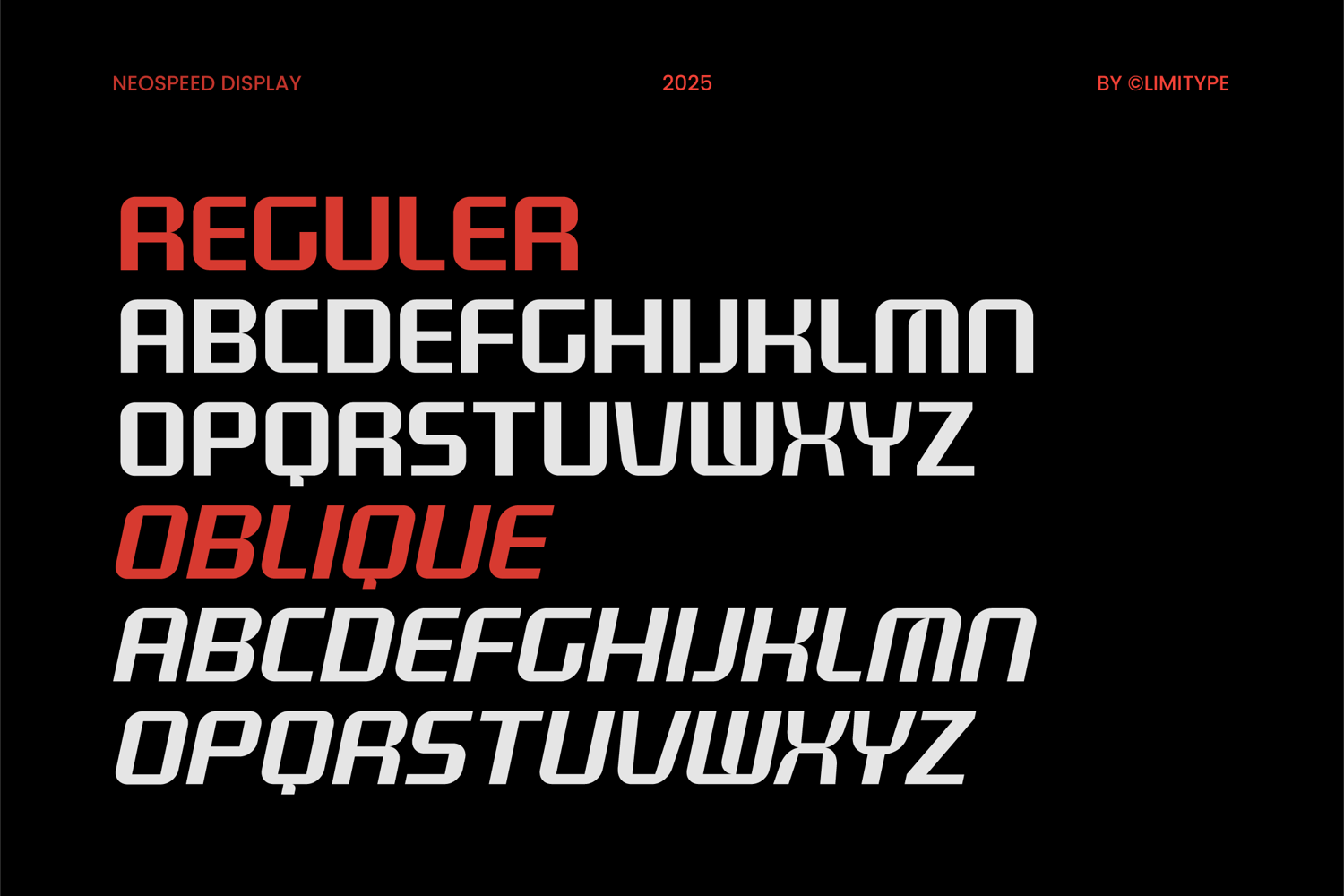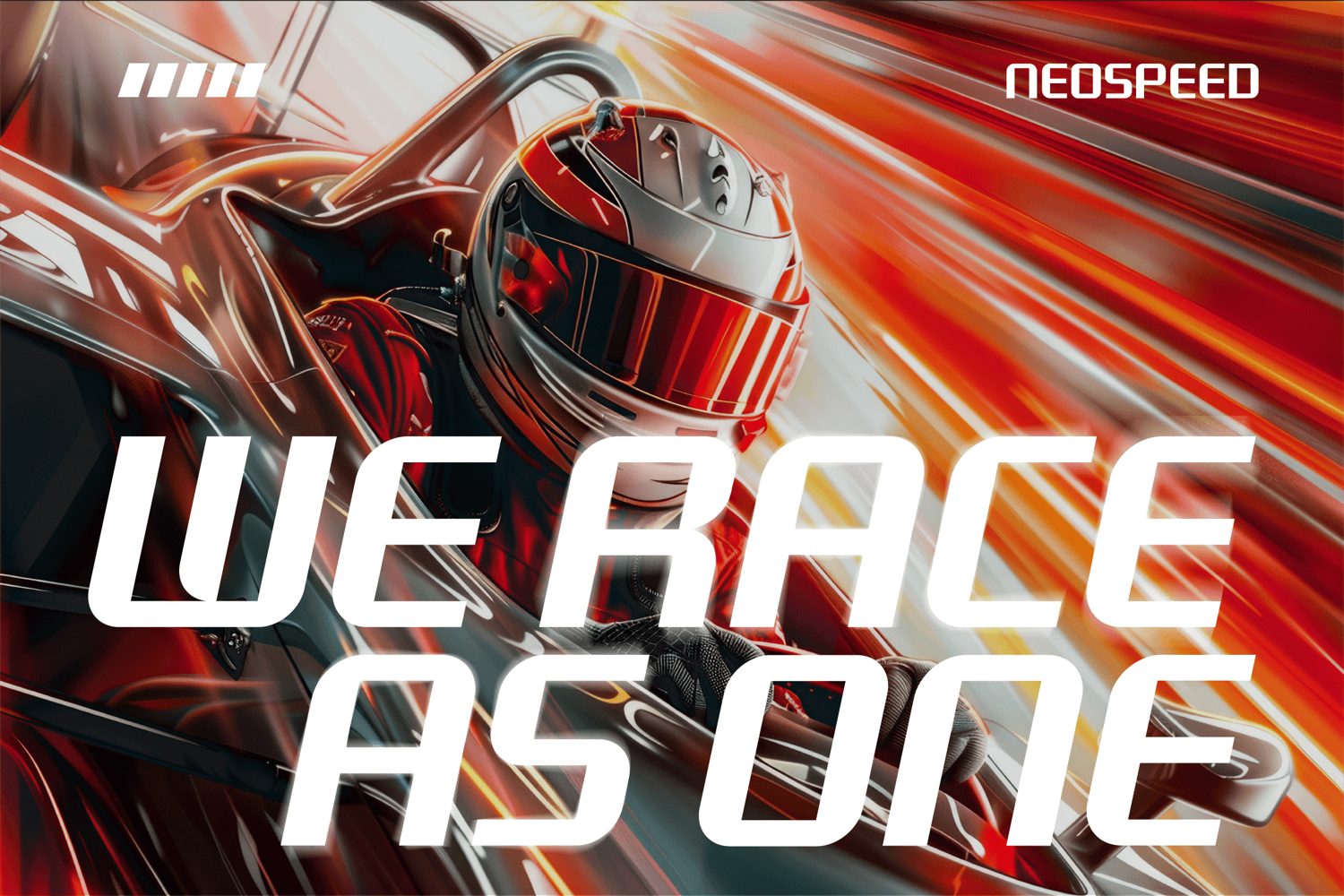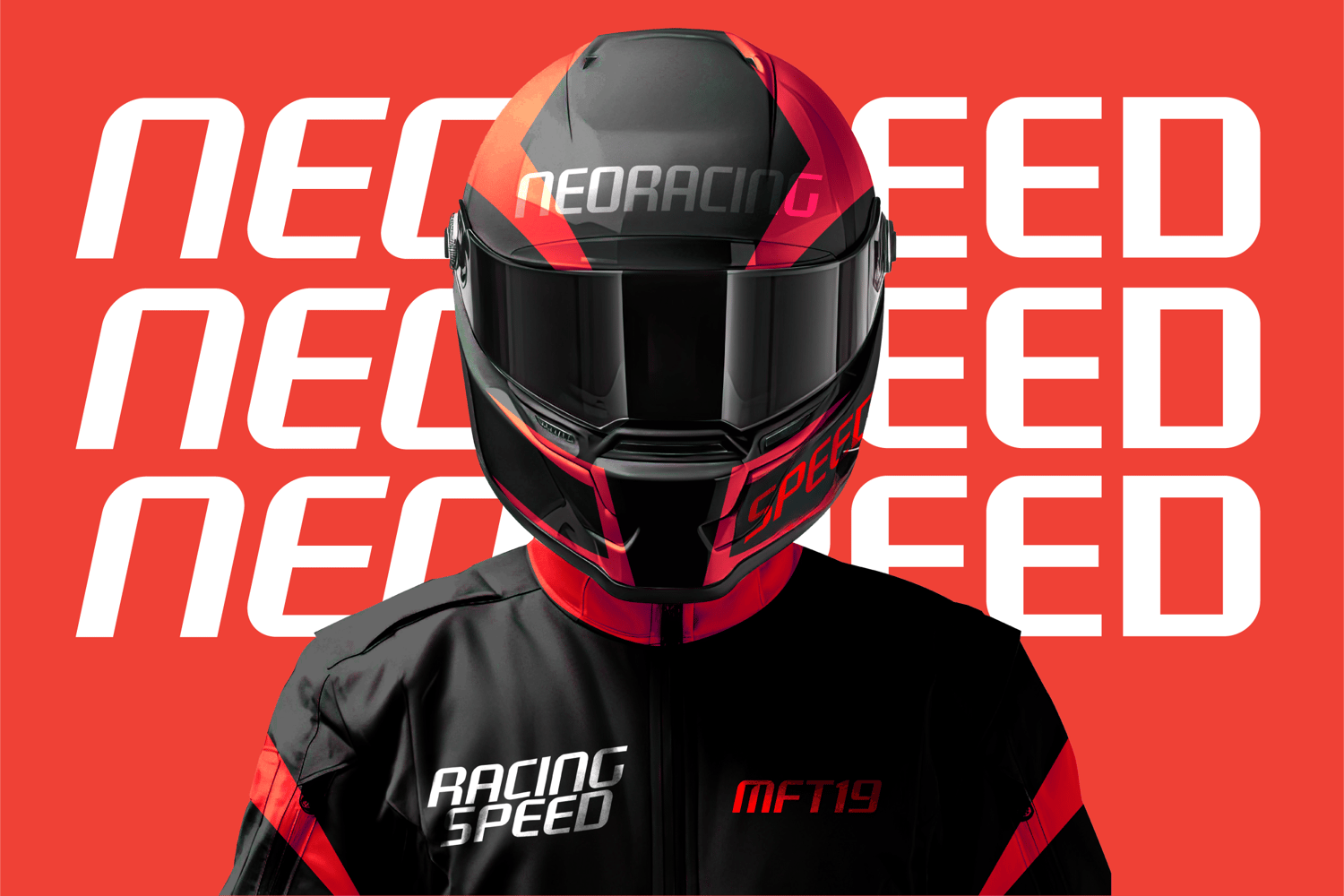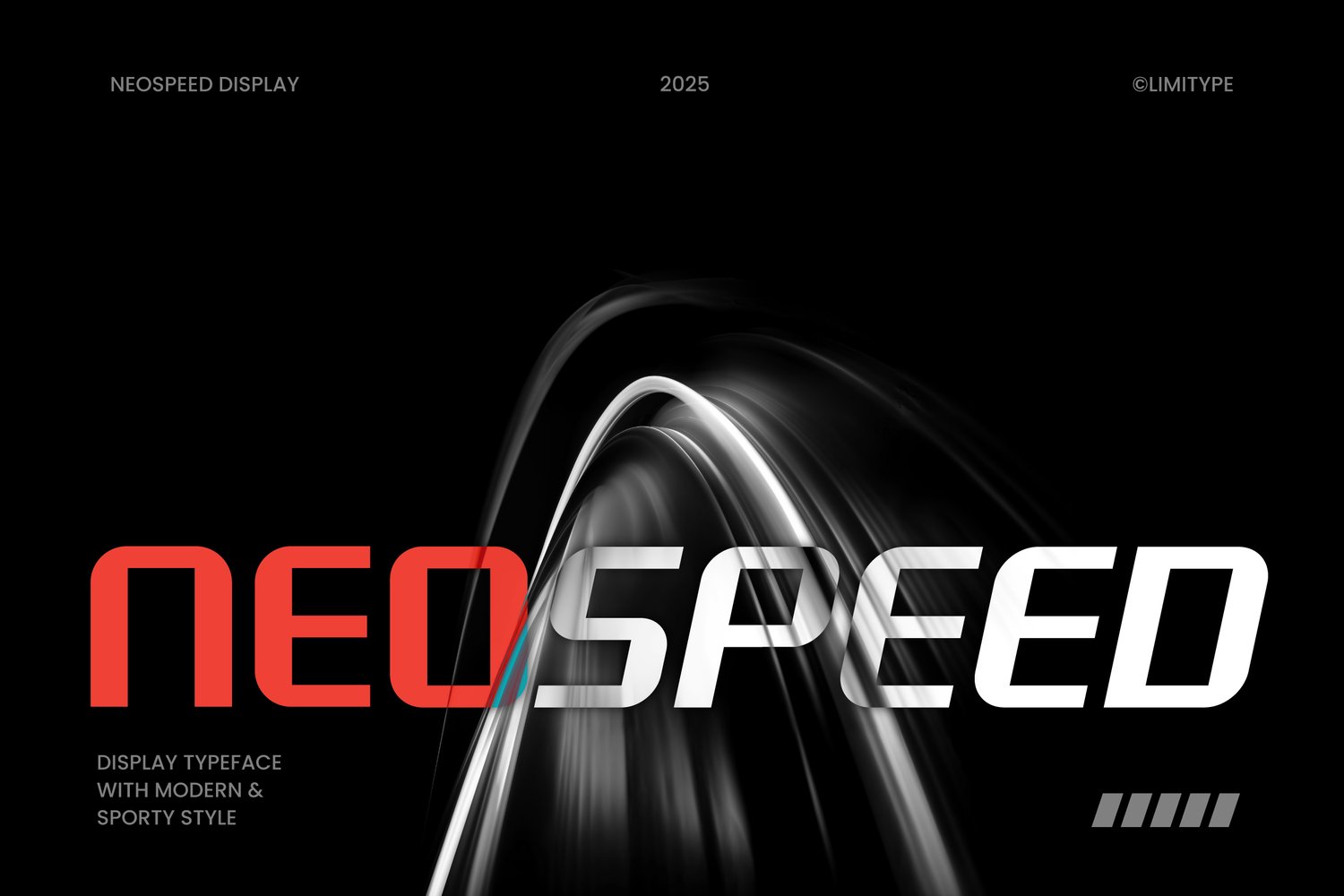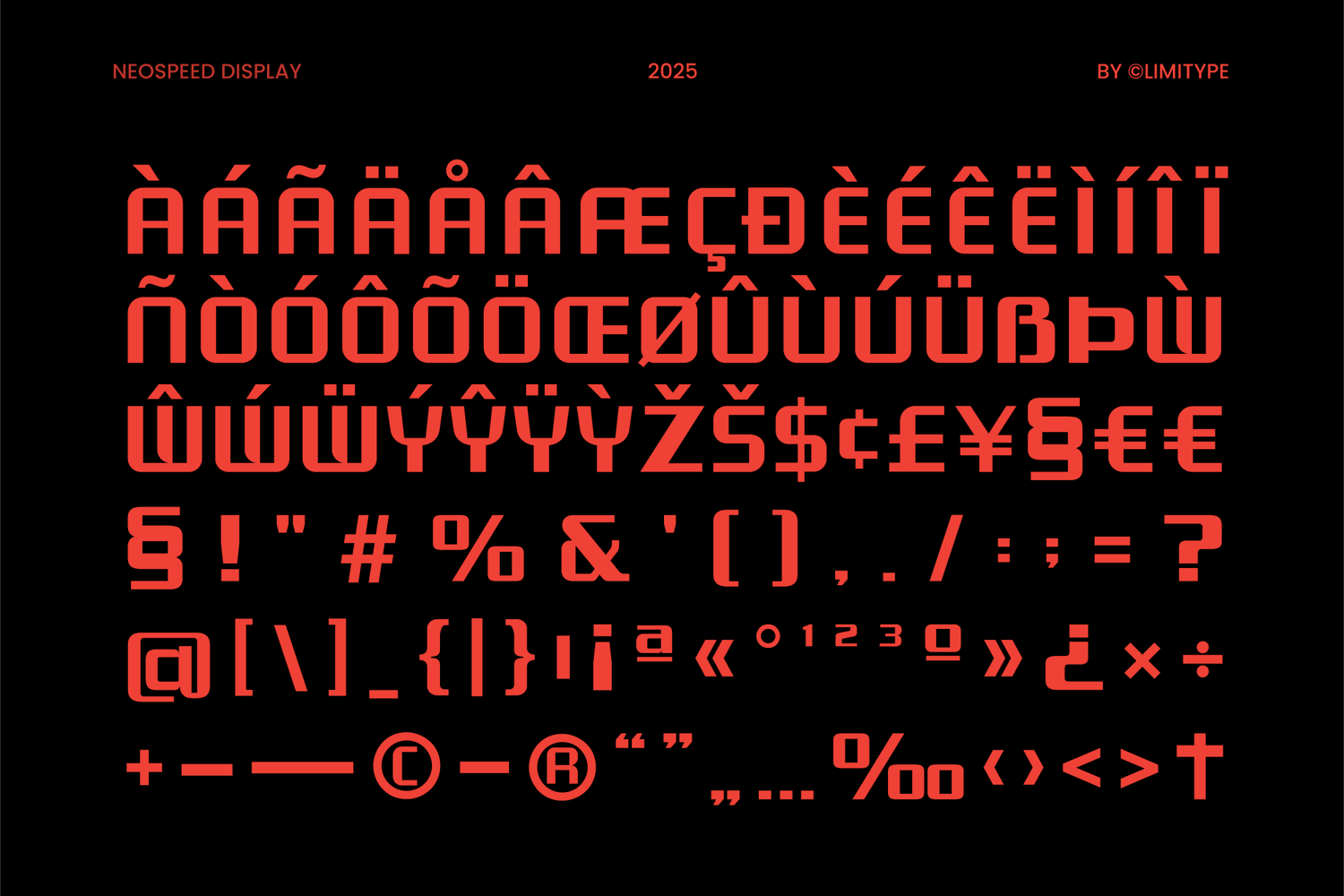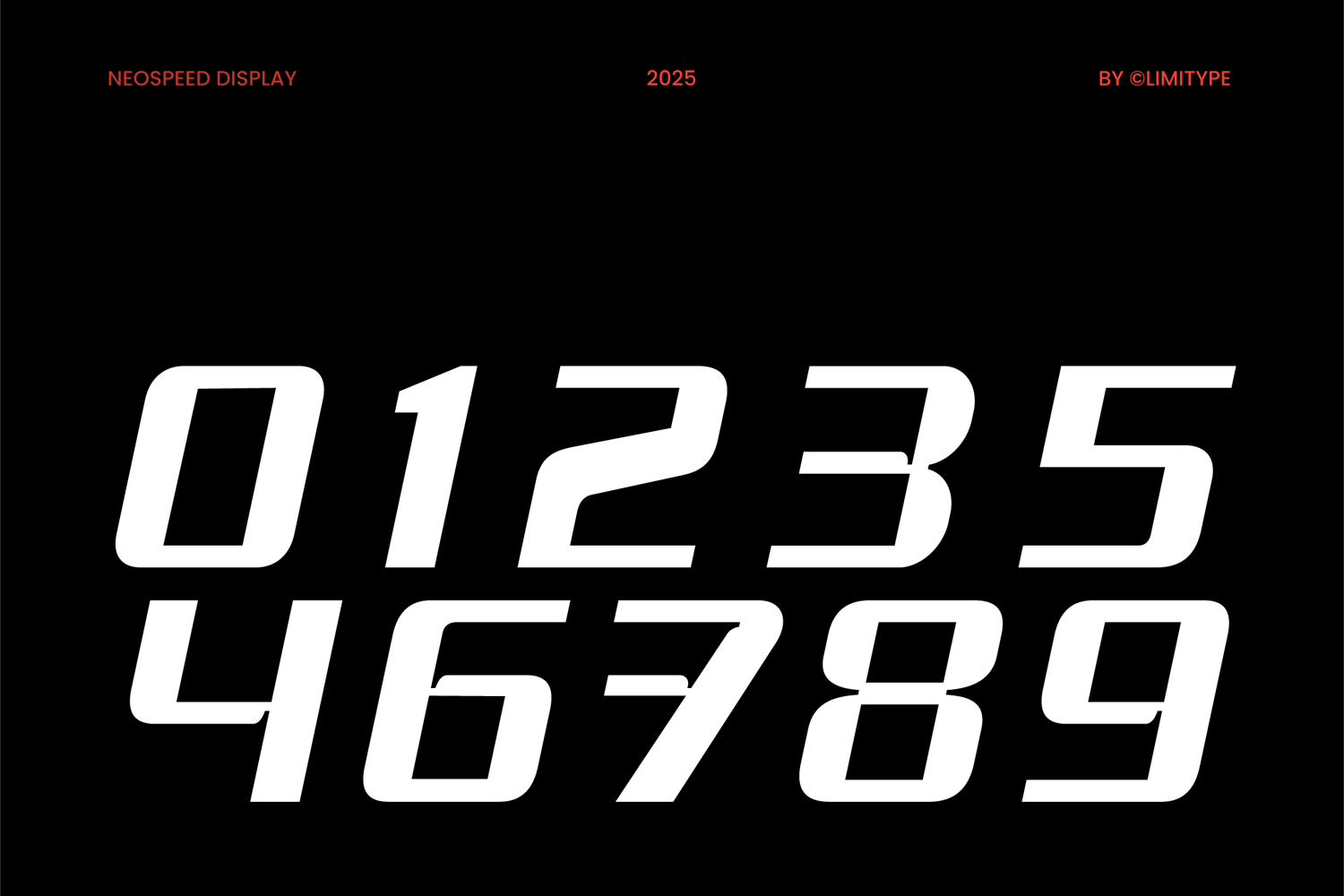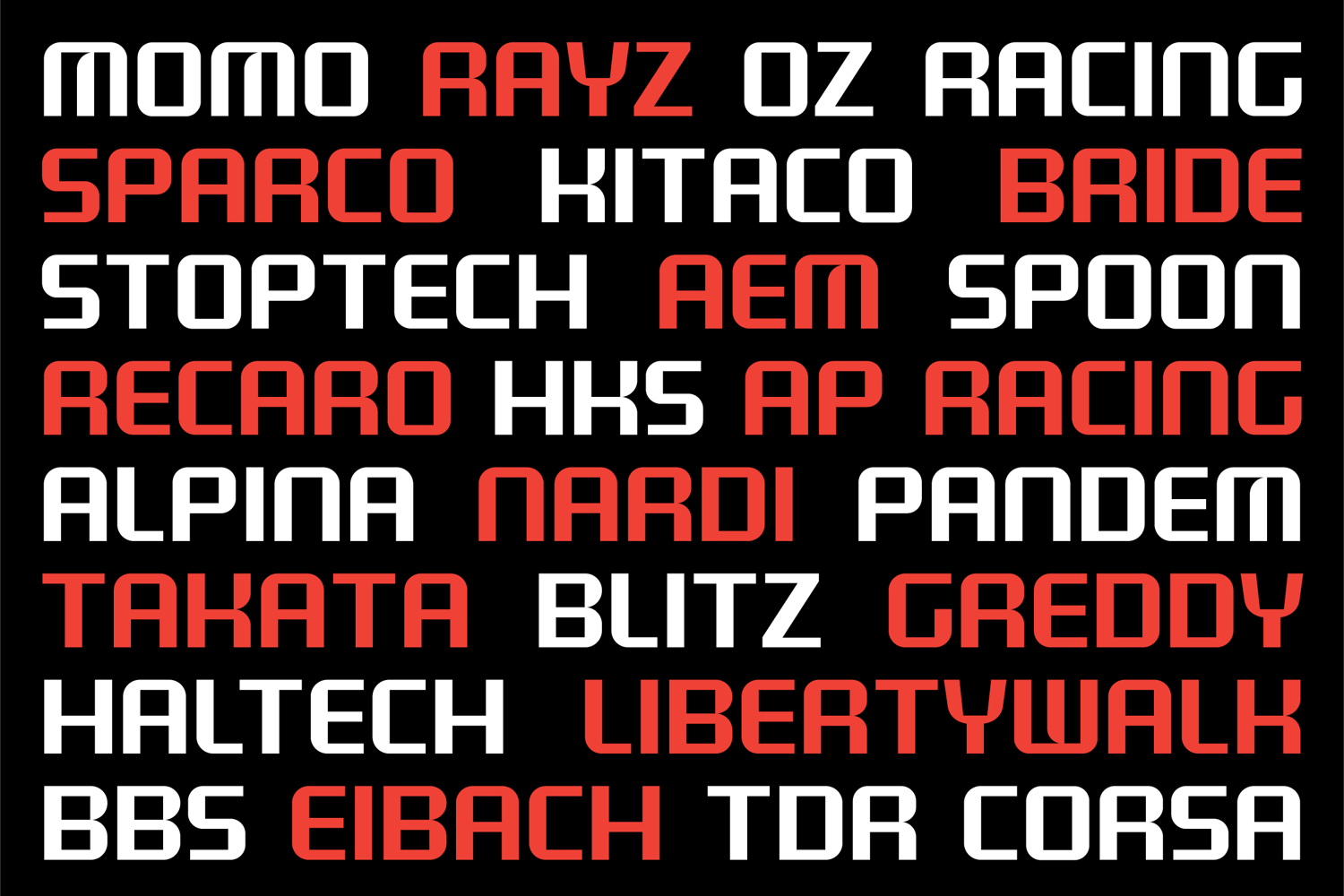
Neospeed - Futuristic Font
Neospeed is a futuristic typeface with dynamic and modern forms, perfect for designs that demand a sense of speed, energy, innovation, and forward thinking aesthetics. Ideal for tech, automotive, gaming, and sci-fi themed projects, Neospeed delivers a futuristic visual identity to elevate your creative work.